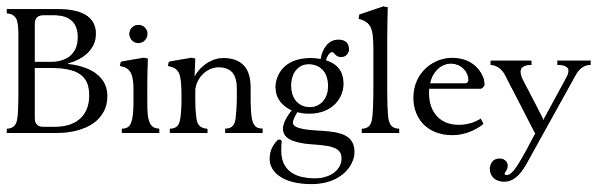
ALS Bingley
Bingley is a beautifully old-fashioned, proper, and full of class body typeface. The British feel of this face comes from its inspirational source—a tombstone script from Oxford. The characters are squat and nearly square in proportions, even...
Bingley